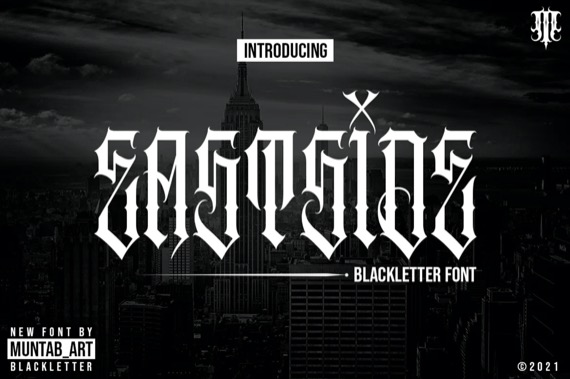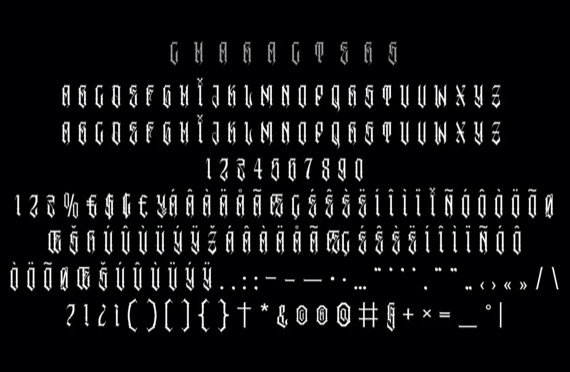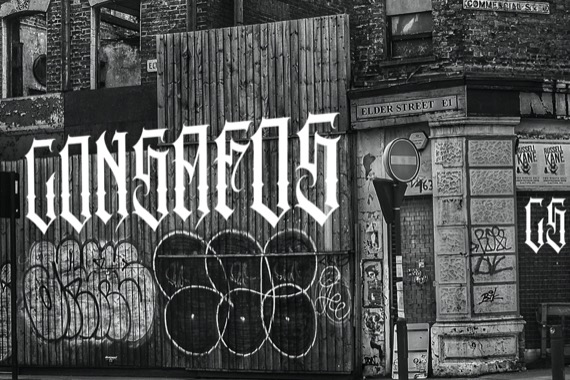
Eastside is a modern and classic blackletter font that was created and shared by Muntab_Art. It includes uppercase letters, numerals, a large range of punctuation. Blackletter font with modern style. Created for poster, web design, branding, illustrations, badges, shirt design and some other works.
Eastside Blackletter Display Font
Designer, Publisher: Muntab_Art